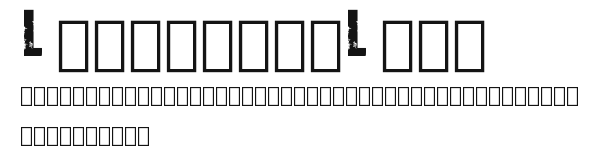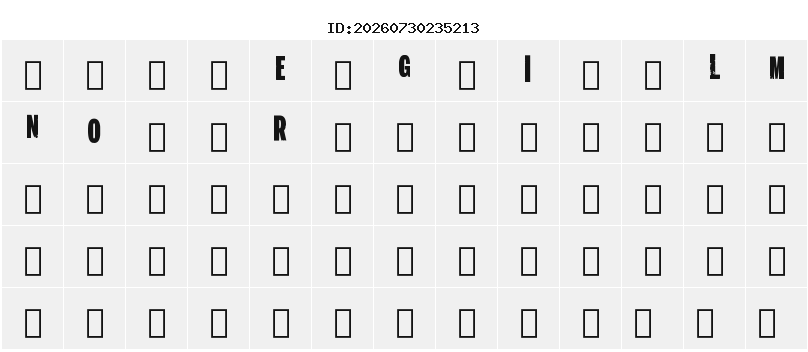
• Font Name: Longmire Logo
About Longmire Logo.ttf
Longmire Logo.ttf is a modern, elegant sans-serif font designed for ultimate readability and visual harmony. Perfect for branding, headlines, web design, and print materials.